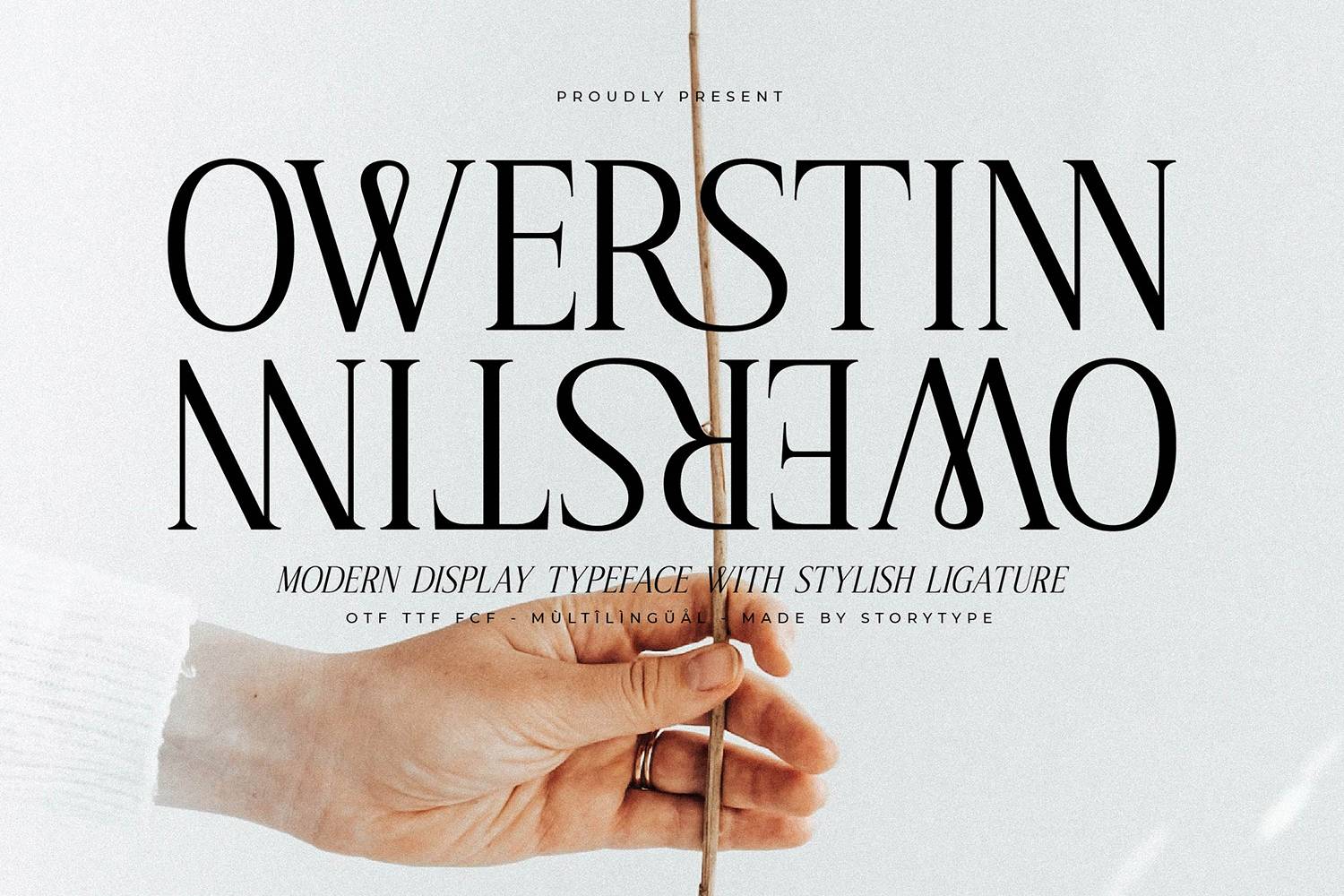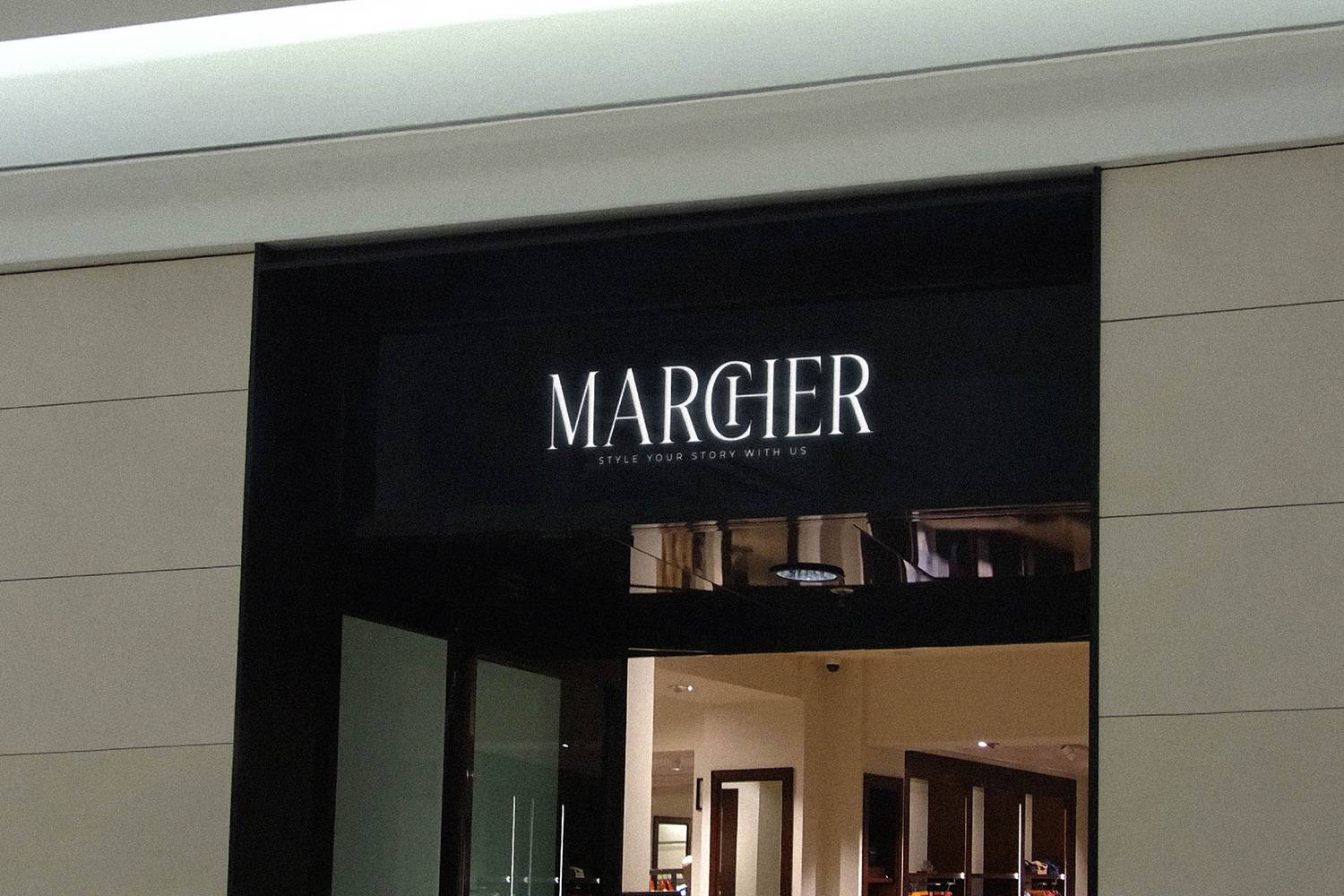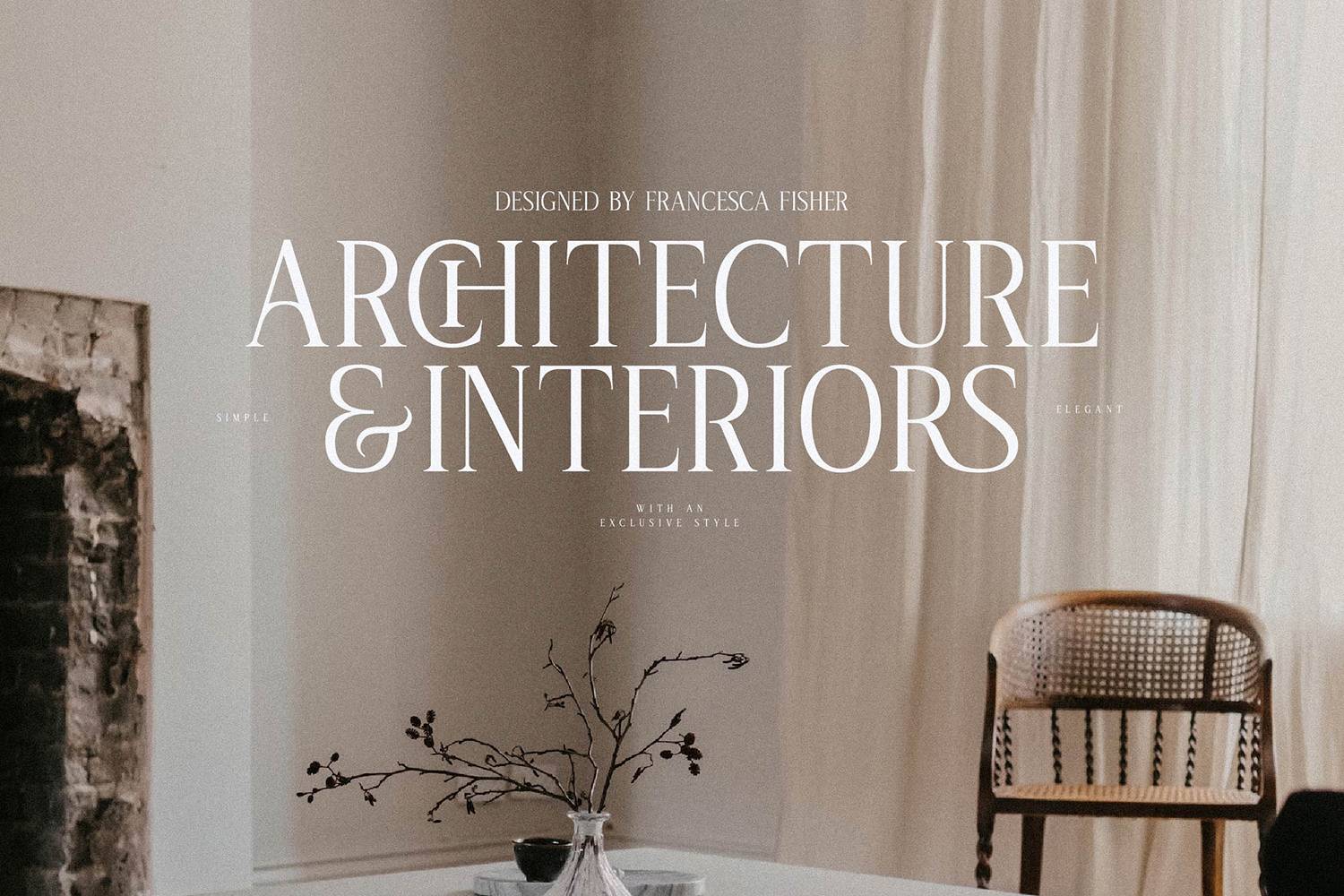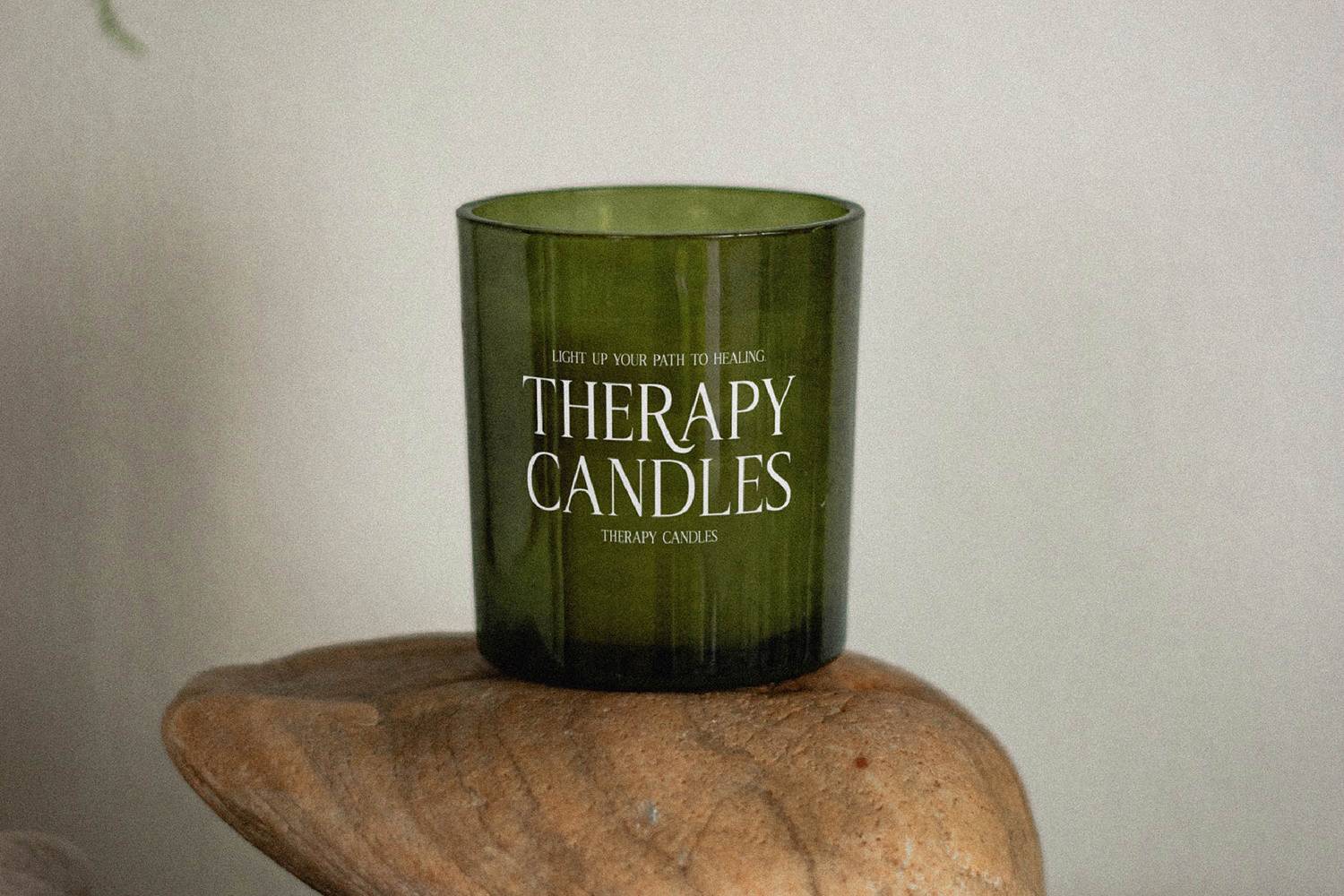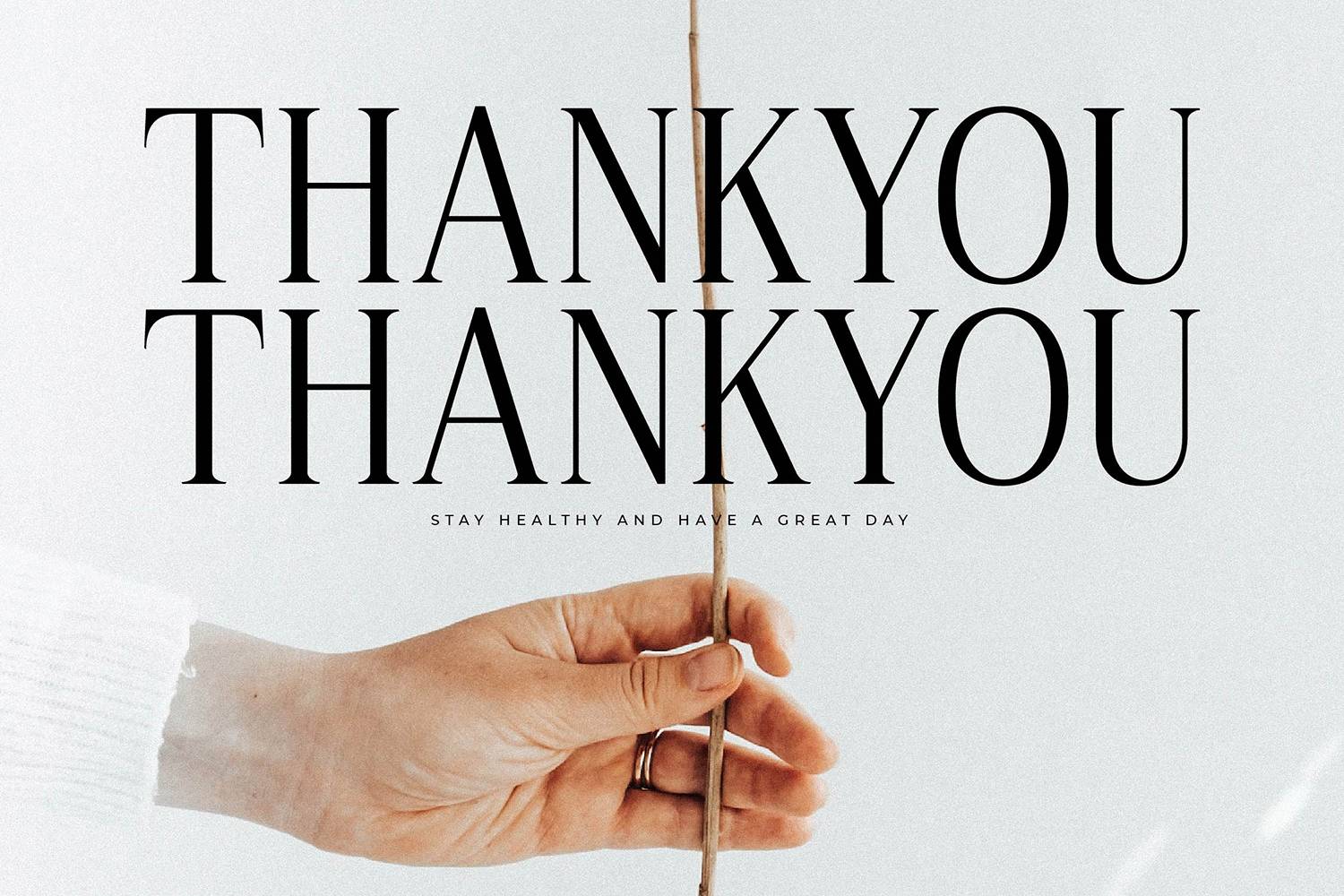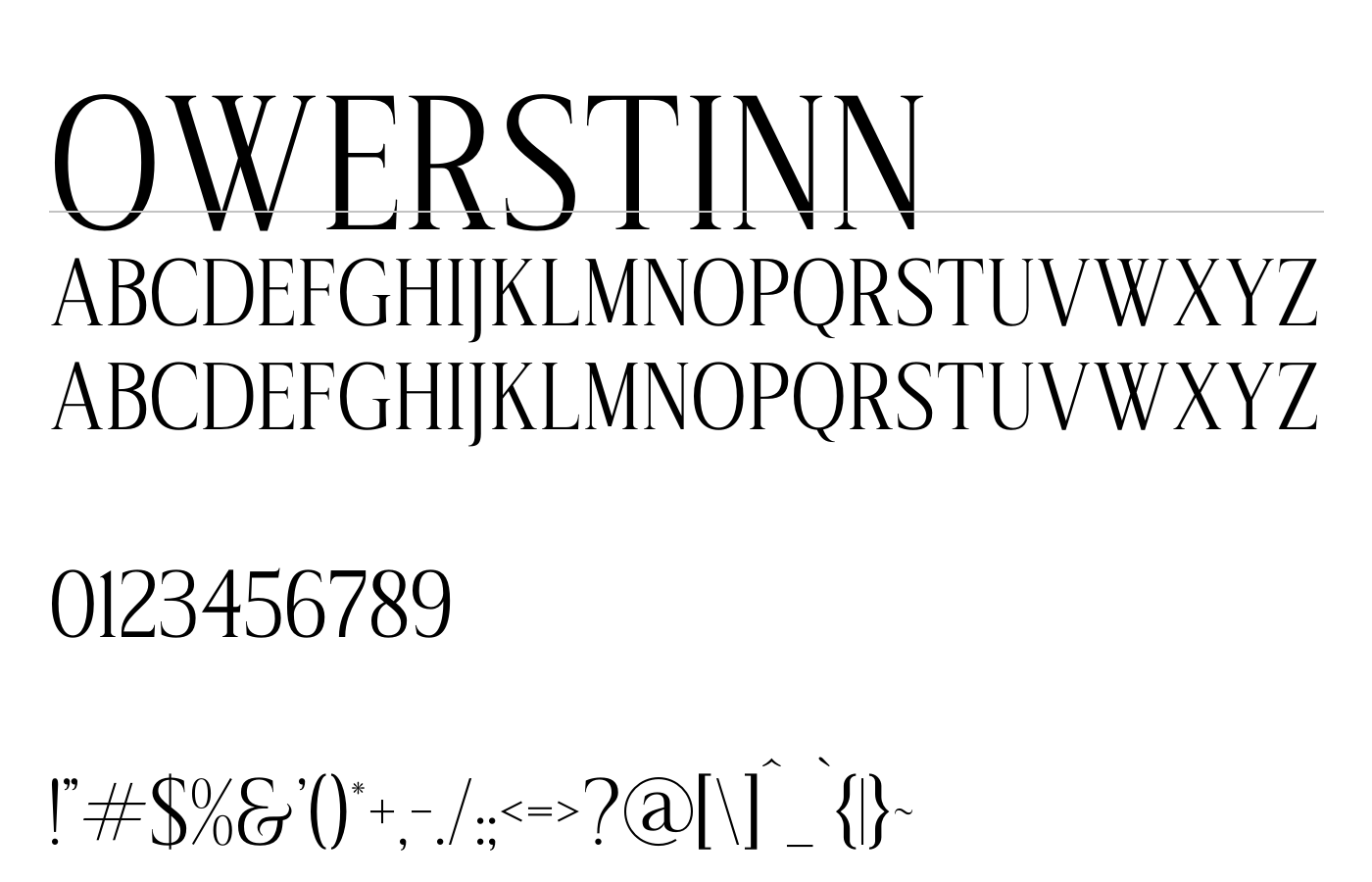
Owerstinn is a refined serif font with a strong modern Didone influence, characterized by its high contrast between thick and thin strokes, elegant thin serifs, and a tall, narrow structure. Its slender letterforms and delicate details convey sophistication and luxury, making it an excellent choice for upscale branding, editorial headlines, and fashion or luxury design projects where a sleek, classy appearance is desired. This font’s stylish and formal personality suits contexts that require a polished, high-end aesthetic.
Owerstinn Font
About Owerstinn Font